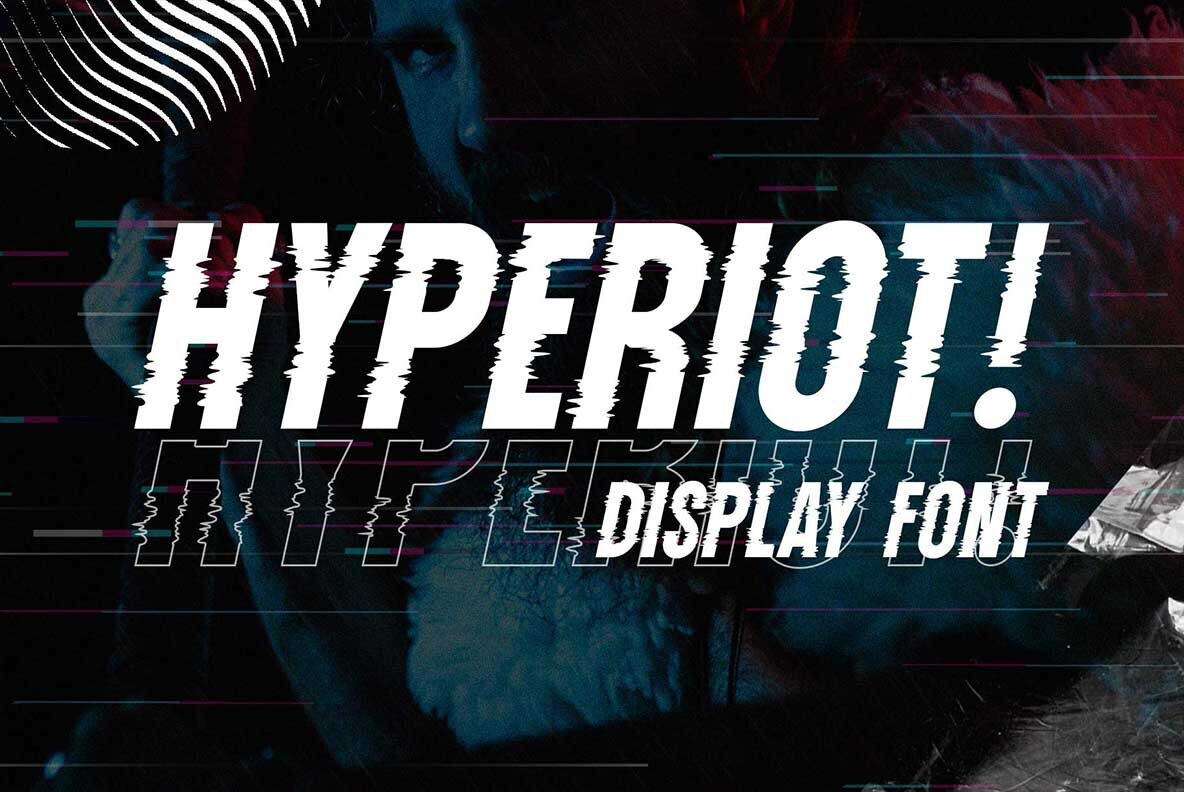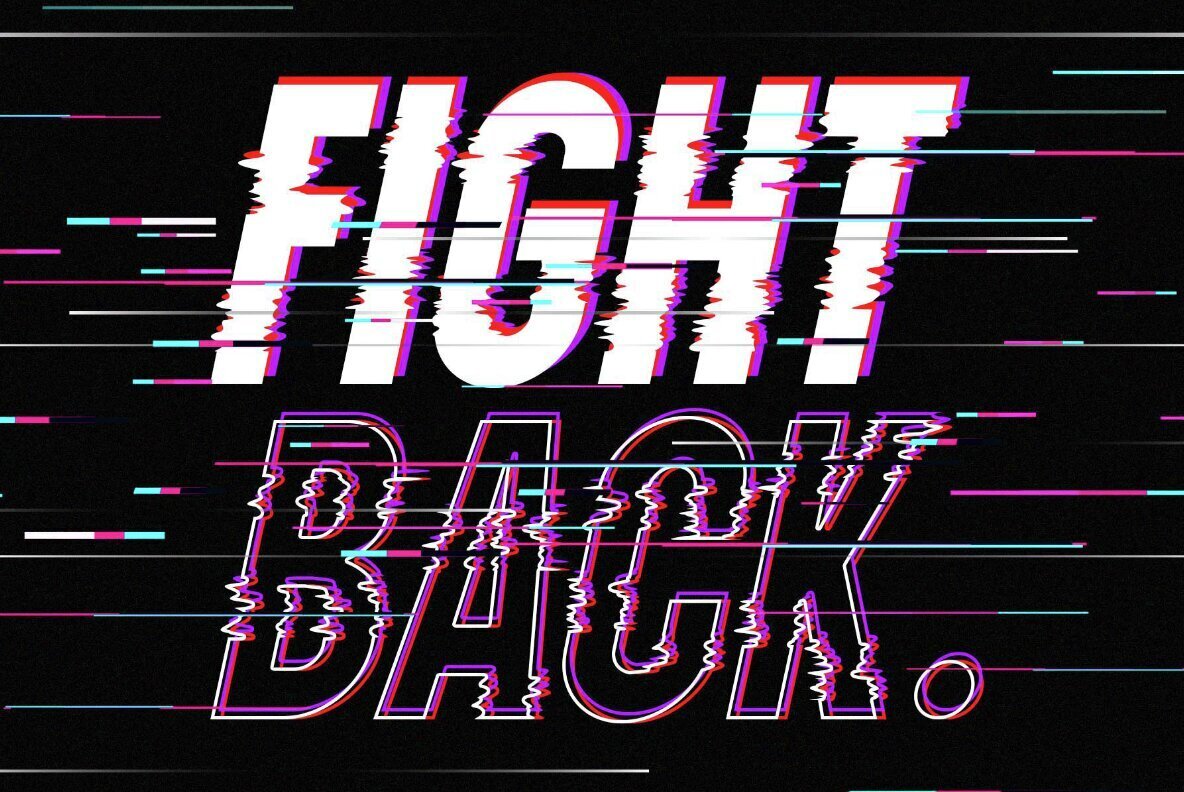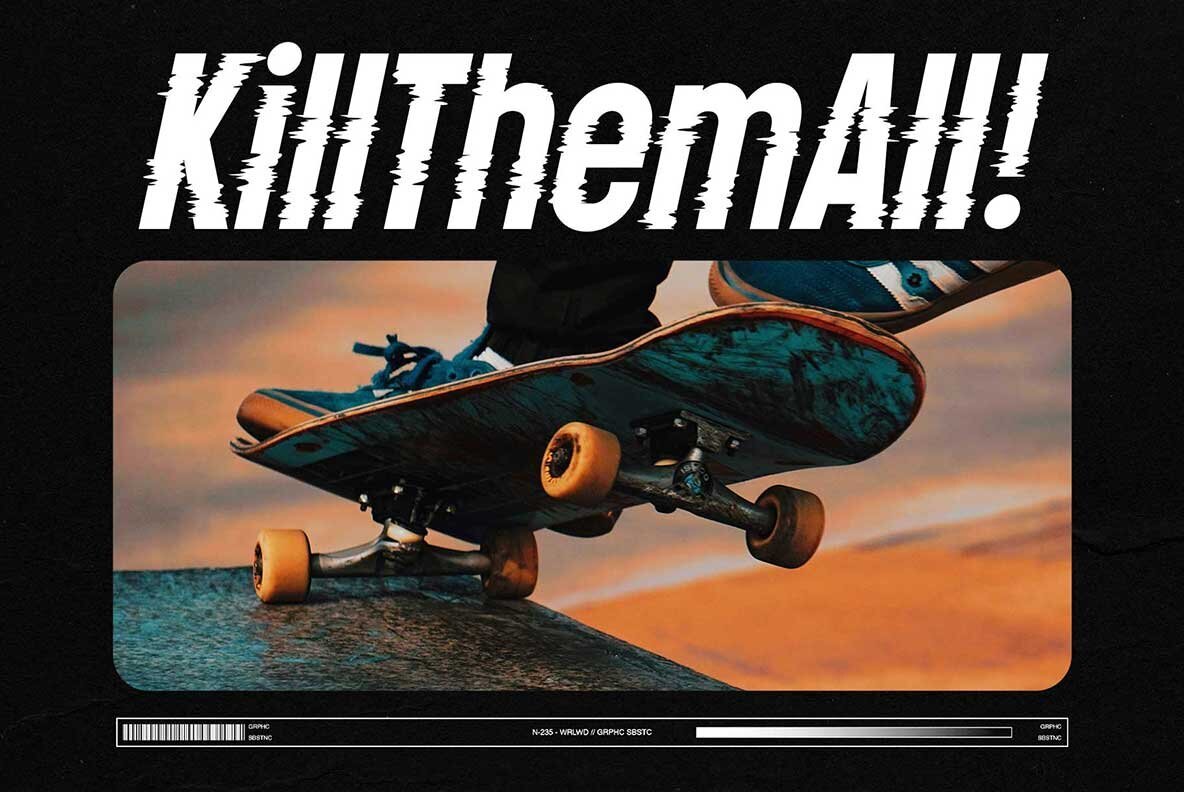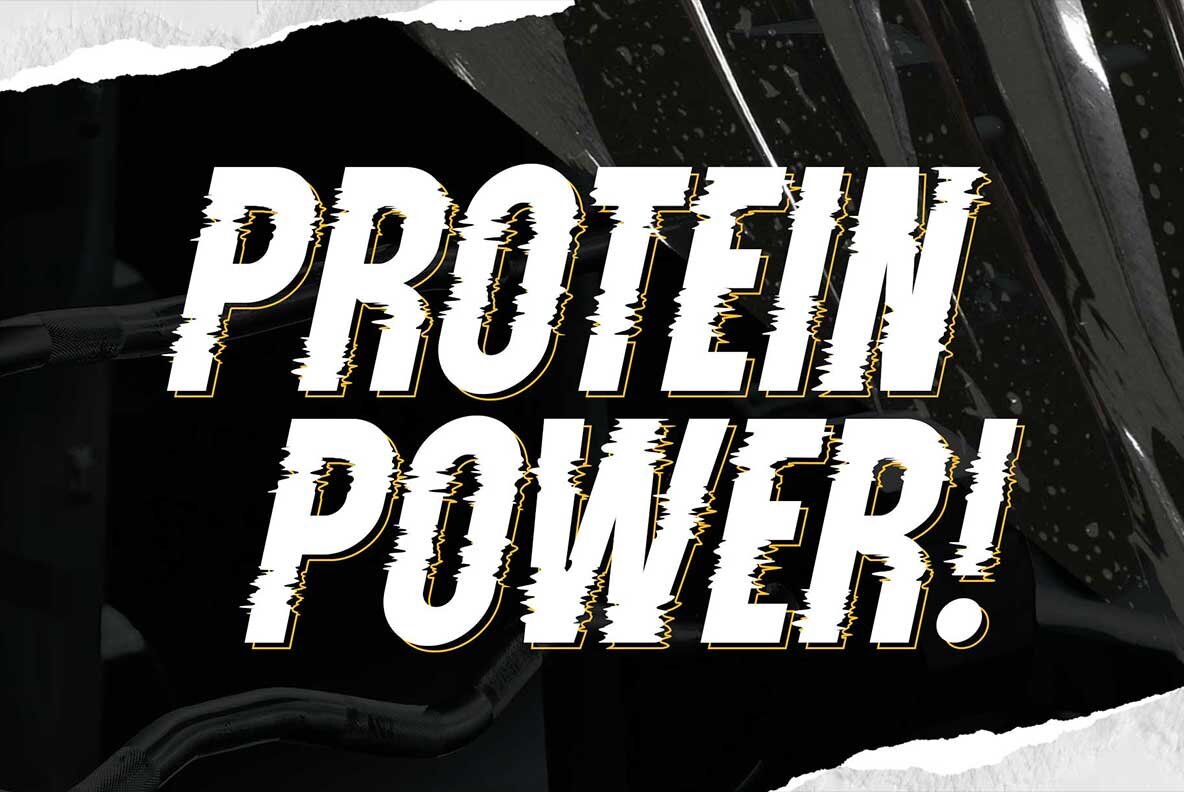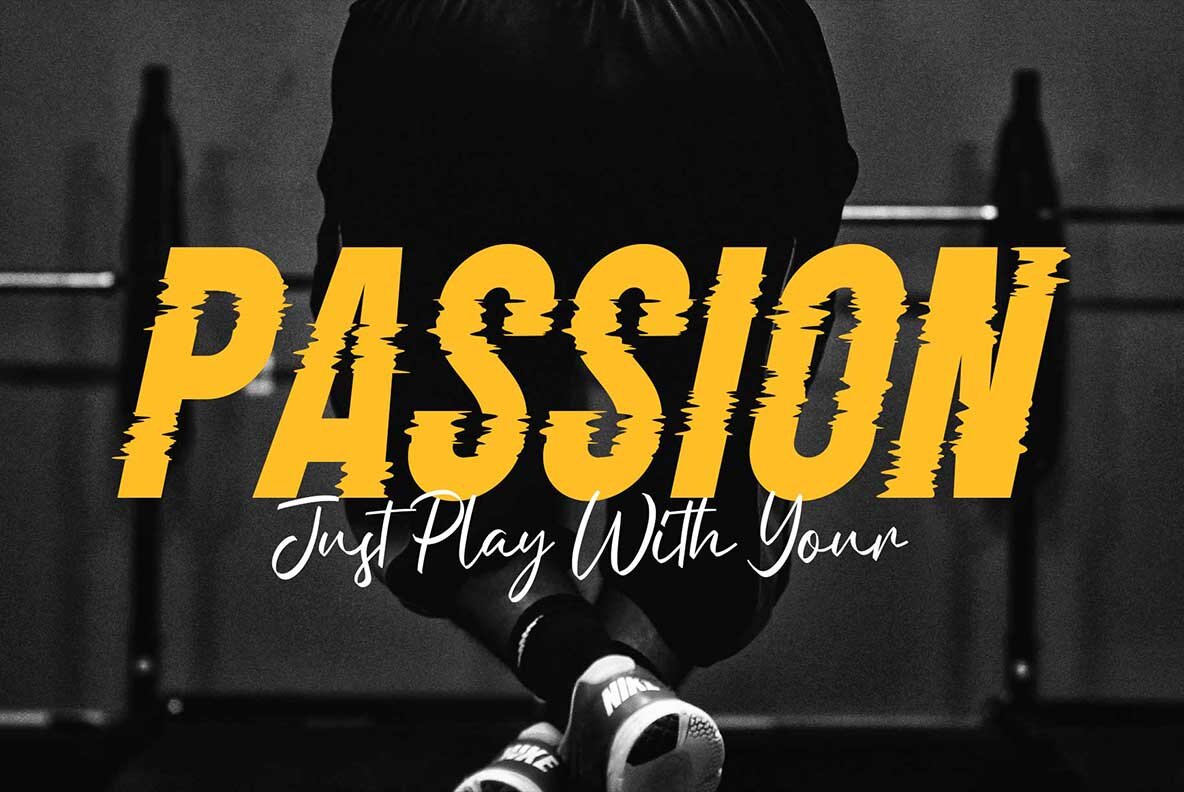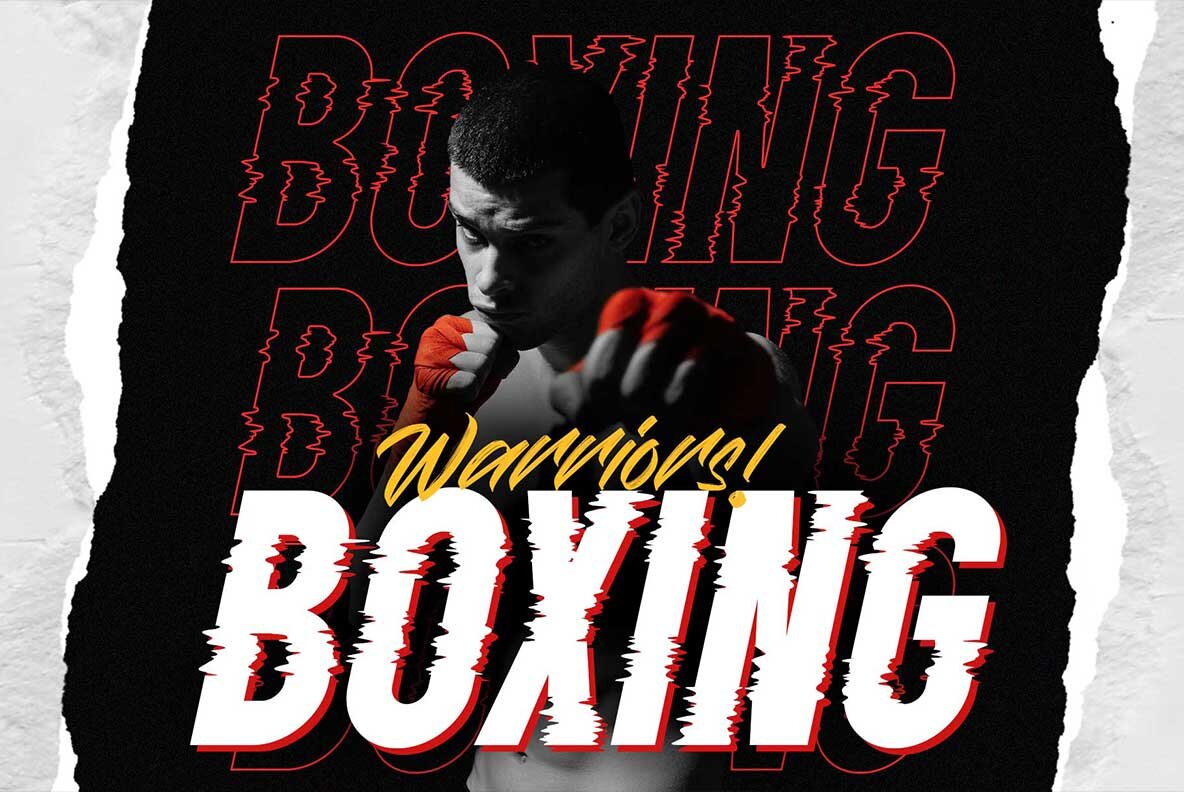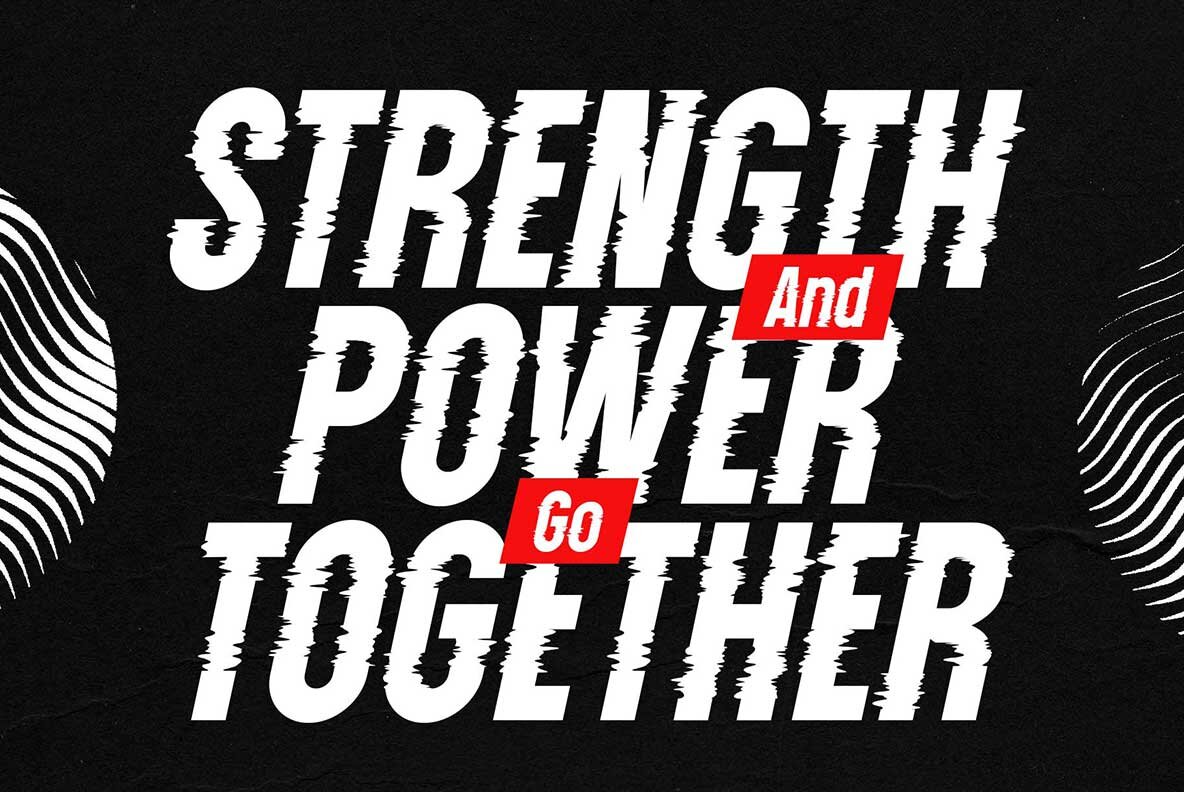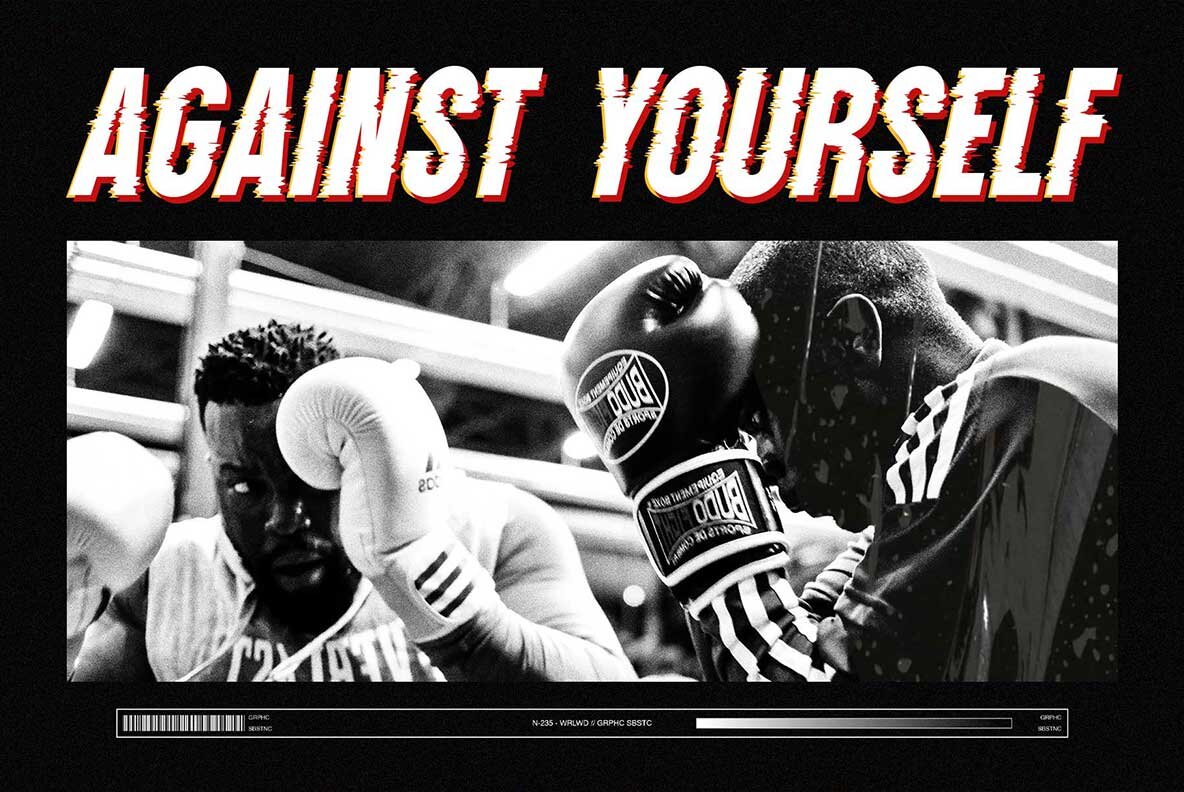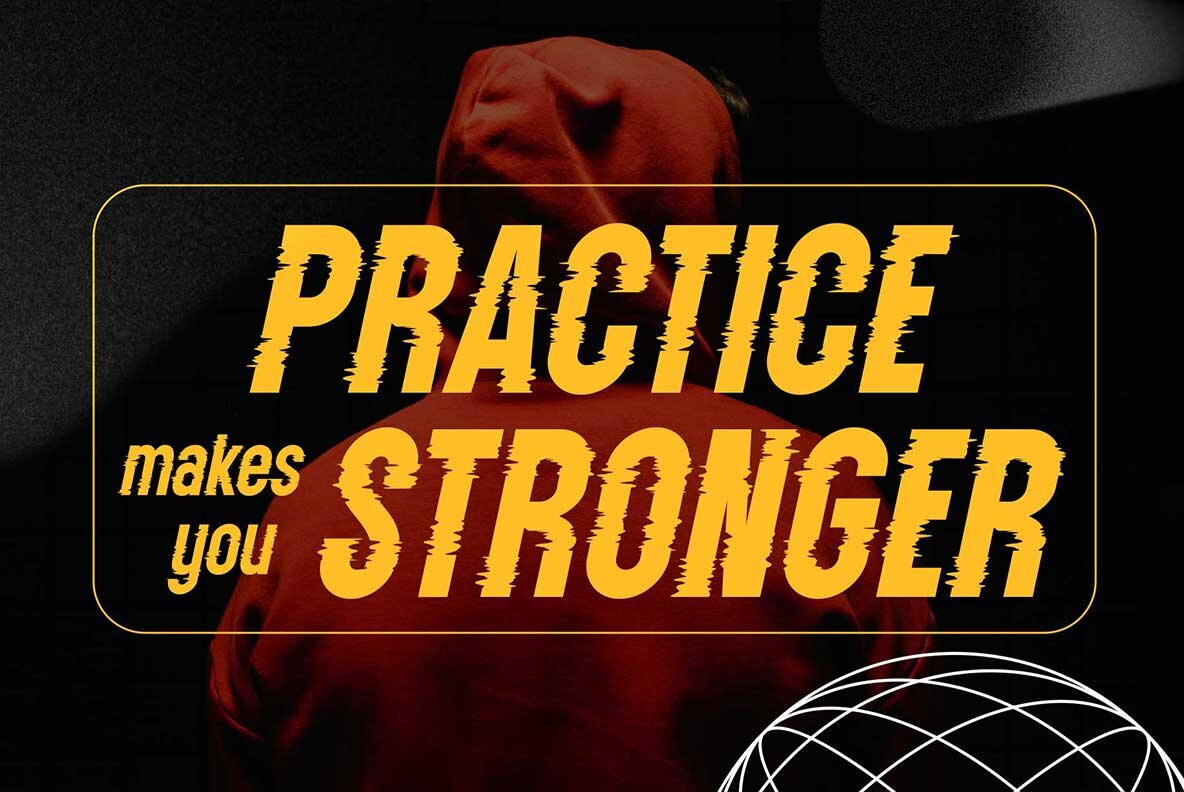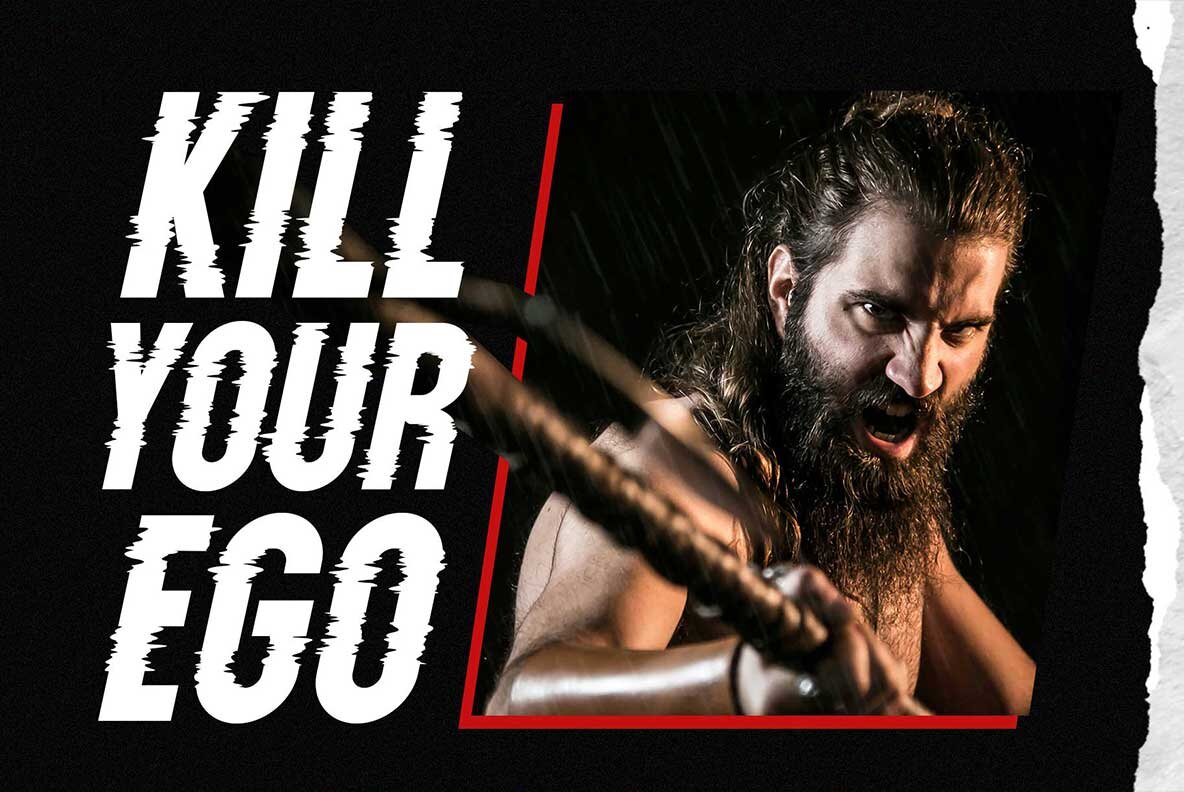
Hyperiot Font
Hyperiot Regular
Hyperiot is a striking typographic marvel inspired by brutalism and glitch aesthetics. This font's randomized glitch effect ensures each letter stands out, making it an ideal choice for diverse design projects. Whether crafting digital themes or creating a techno or urban style, Hyperiot is your go-to font. With its array of special characters, Hyperiot allows you to effortlessly design typography variations that capture attention and creativity. The font supports multiple languages, making it versatile and user-friendly. Perfect for headlines, posters, logos, websites, social media, apparel, quotes, and packaging, Hyperiot brings a unique flair to any project.Hyperiot: Experimental Condensed Font